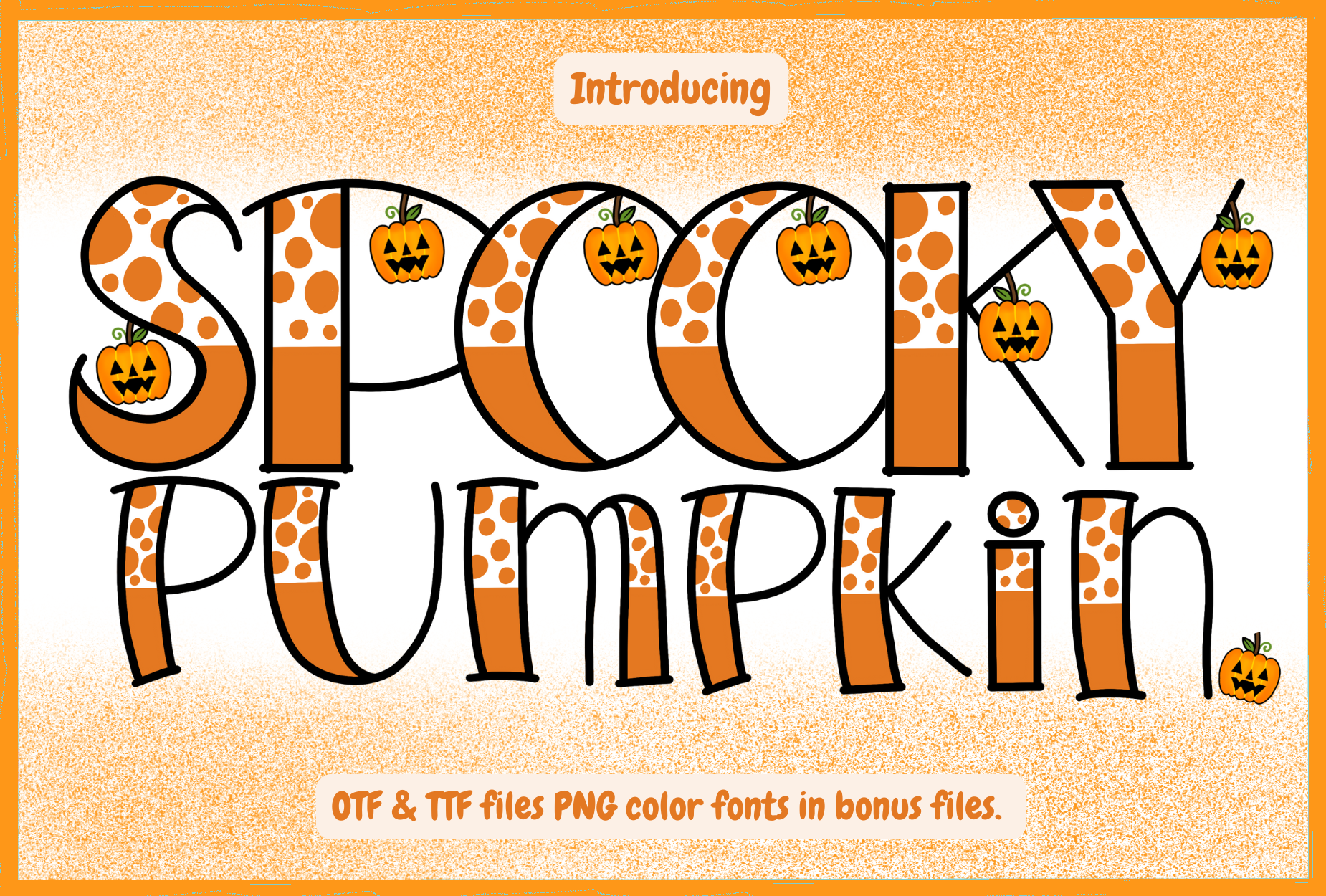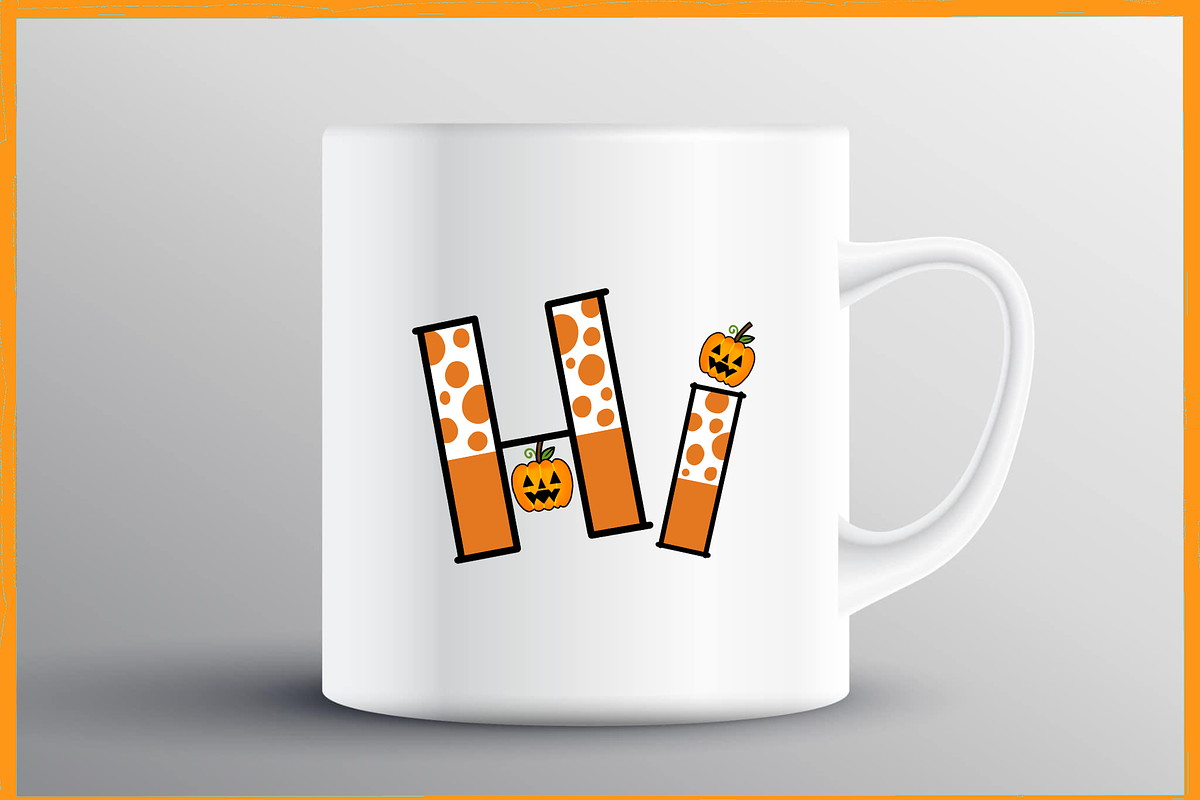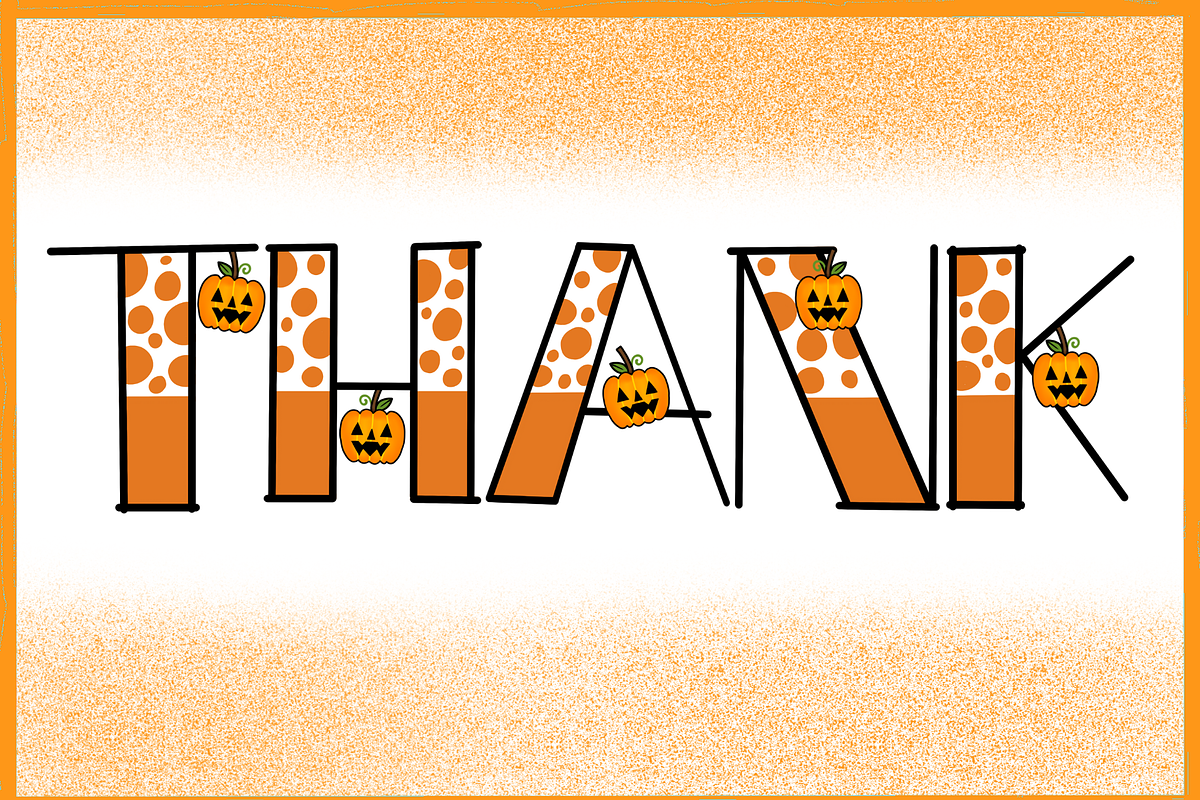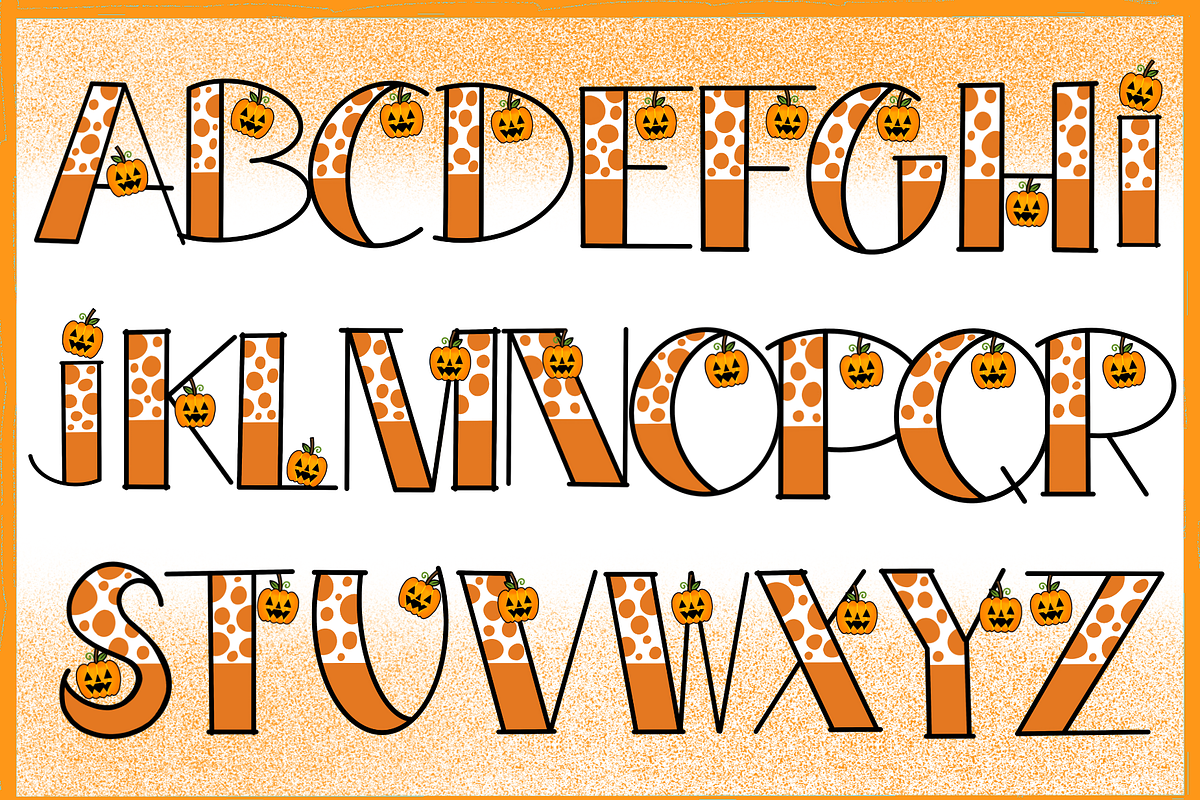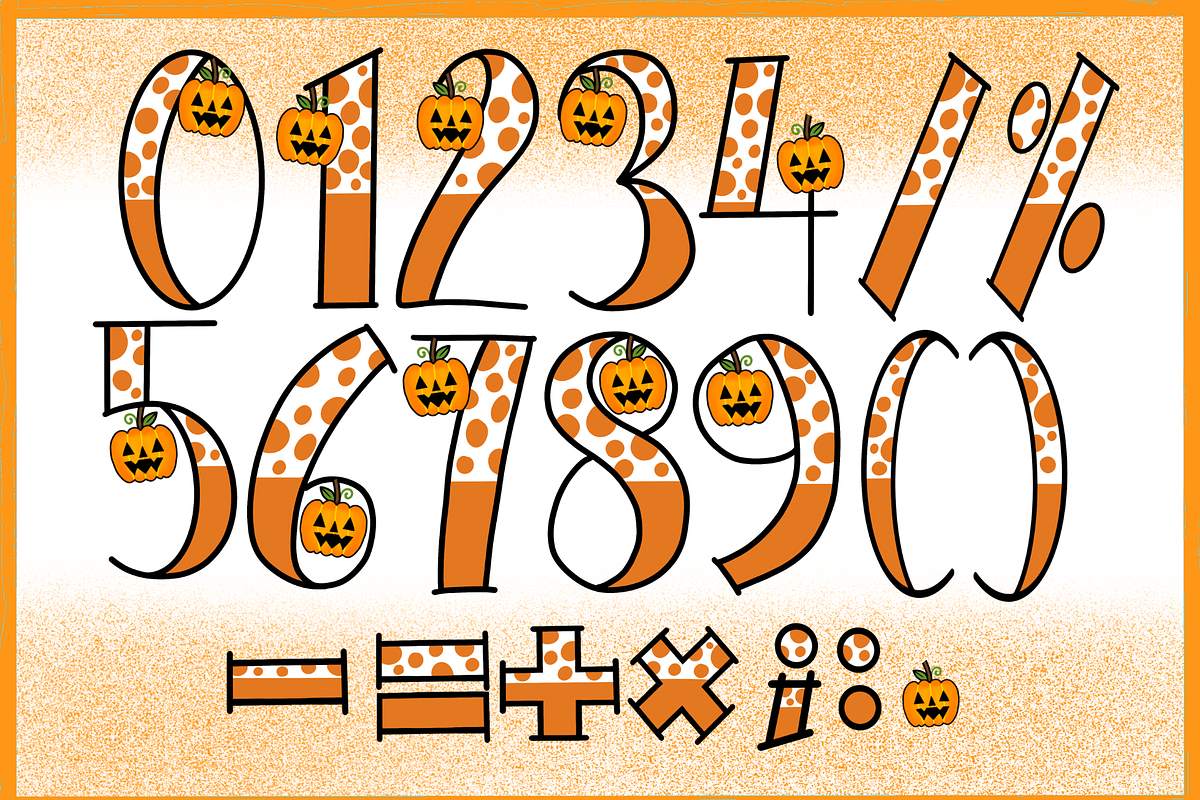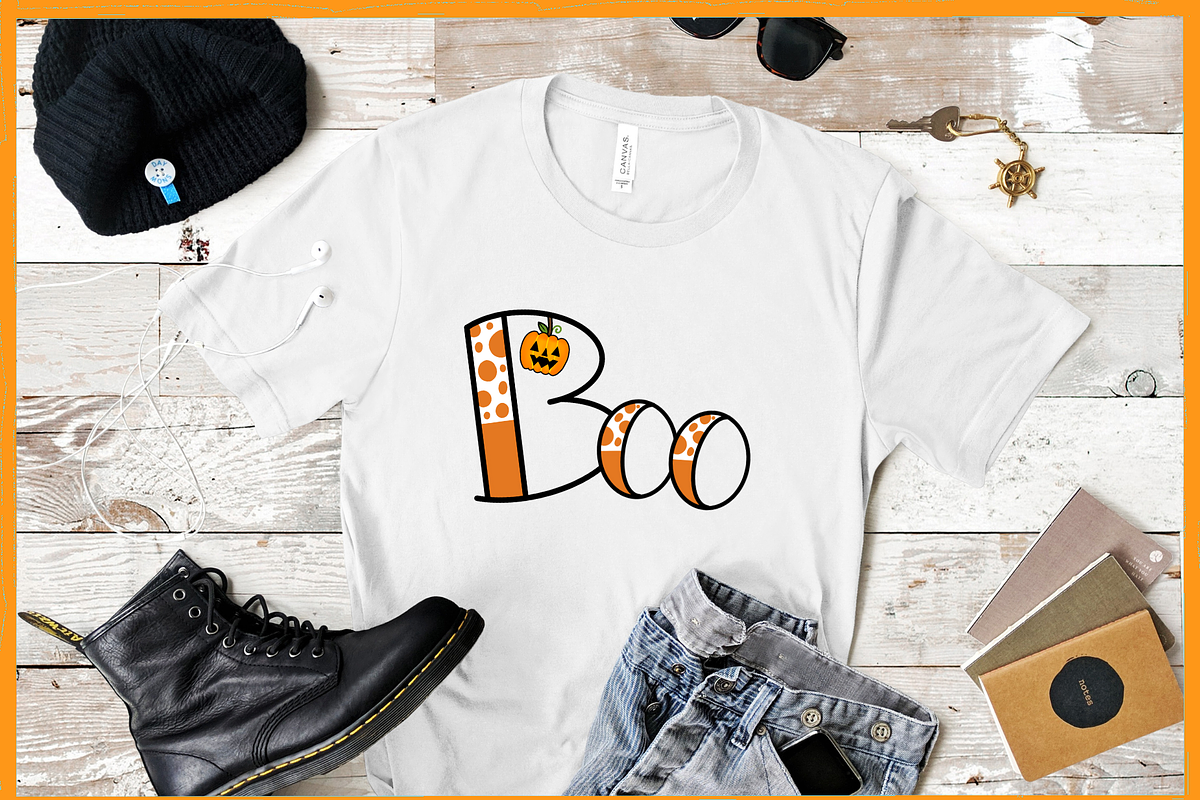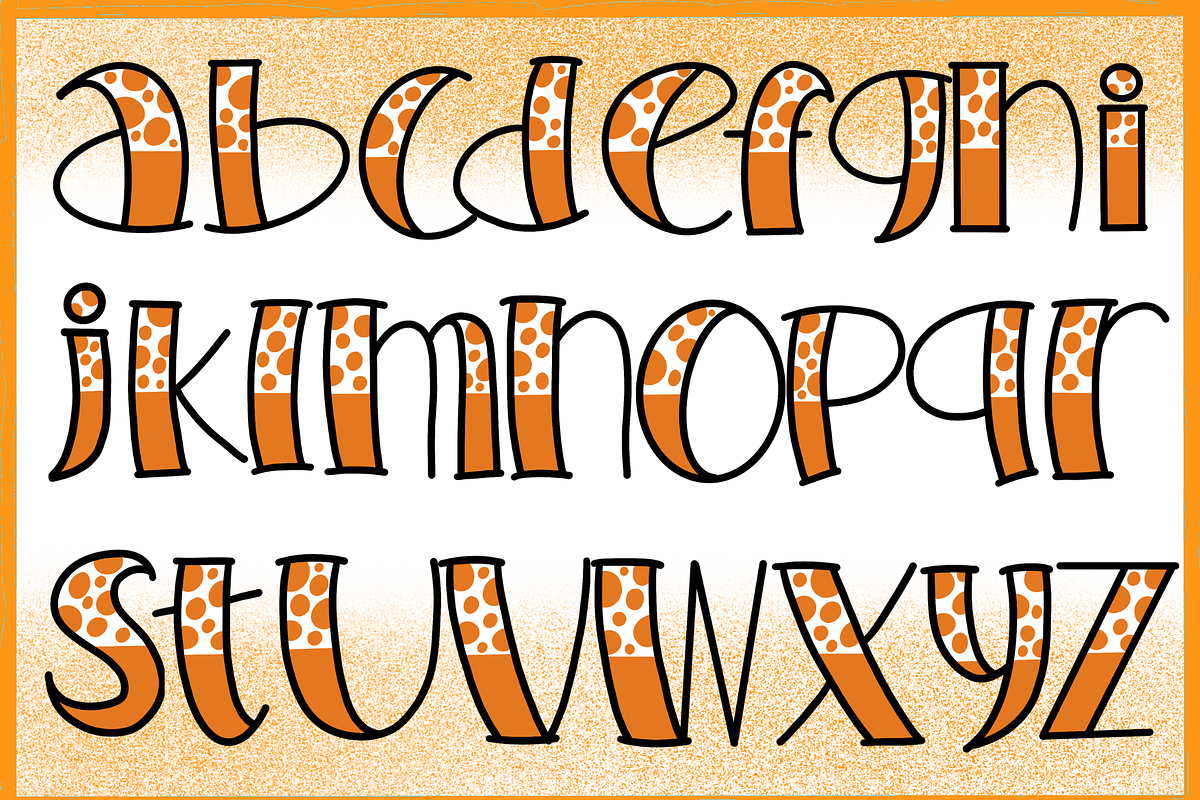
Spooky Pumpkin Font Super cute handwriting font, simple style, suitable for teaching. decorate the presentation Use for education, advertising, illustration, multi-purpose use. welcome everyone thanks